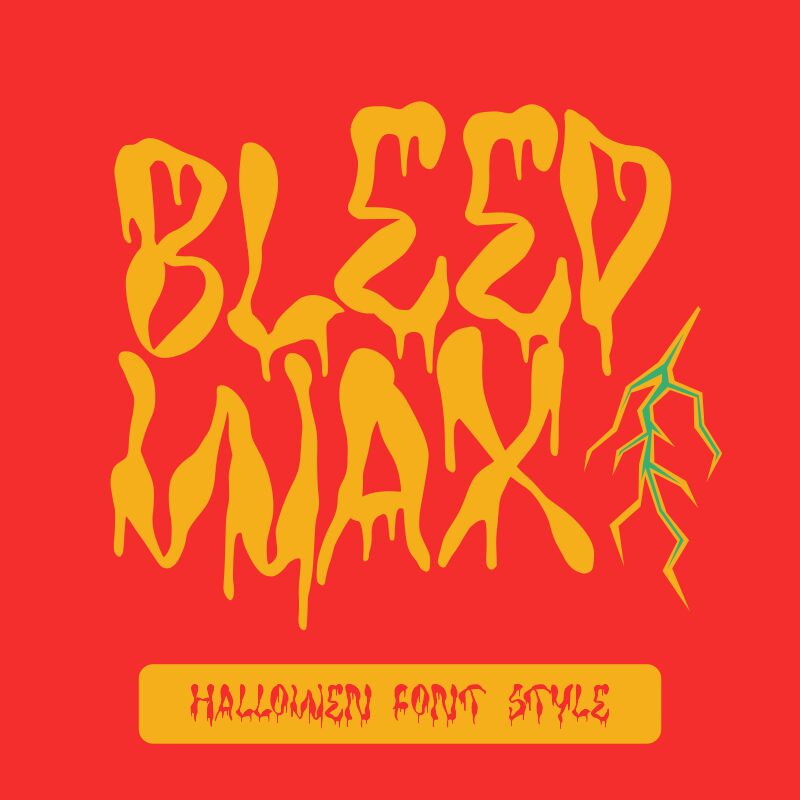
TF Bleedwax font is a free font by Teenage Foundry exploring the horror-inspired concept of unconventional shapes and eerie imperfections. A holiday typeface whose unusual appearance is created through uneven weights and a flowing feel. Eye-catching and unsettling, the characters achieve the distinct look we witness by seemingly connecting the glyphs’ irregular outlines.
Holiday designs and other special occasion concepts are among the best uses of this scripty typeface. TF Bleedwax’s unique personality supports titles for horror movie posters, Halloween invitations, or thriller book cover artworks.